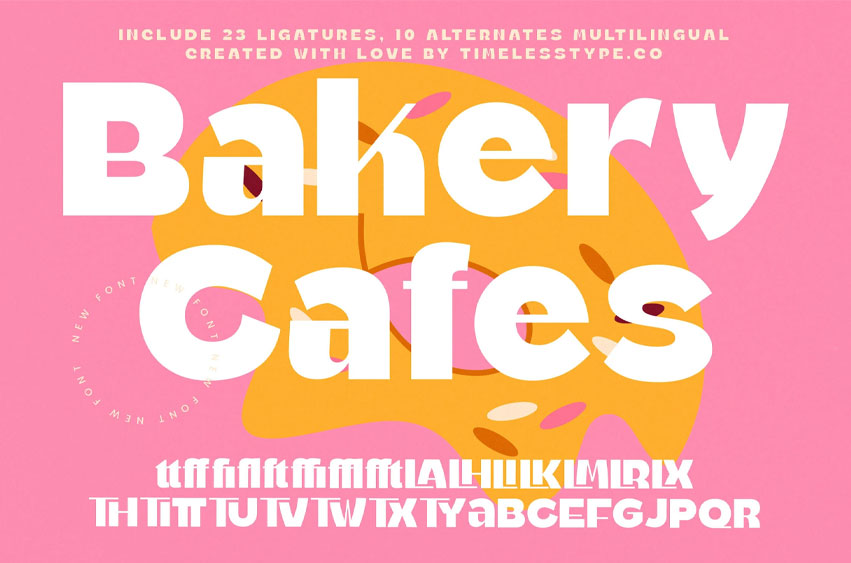
Bakery Cafes Font
Bakery Cafes Font is suitable to complement your digital and printed creative products.
This font is perfect for posters, social media posts, branding, personal projects, etc.